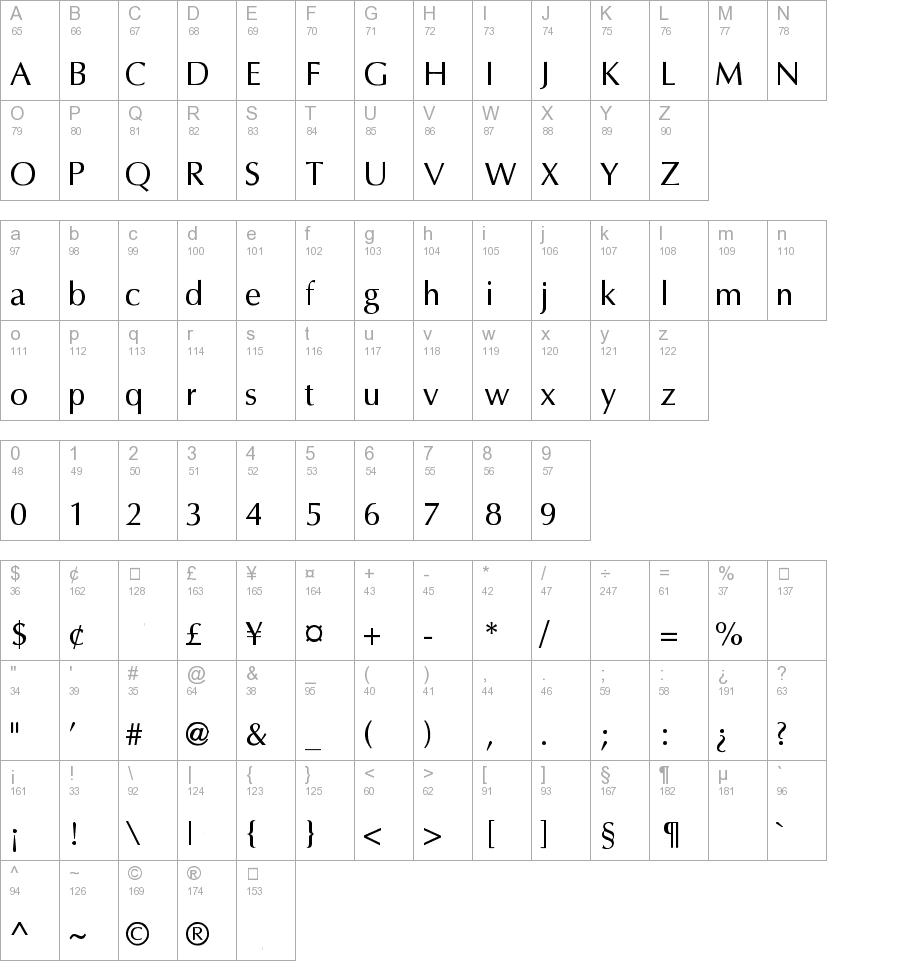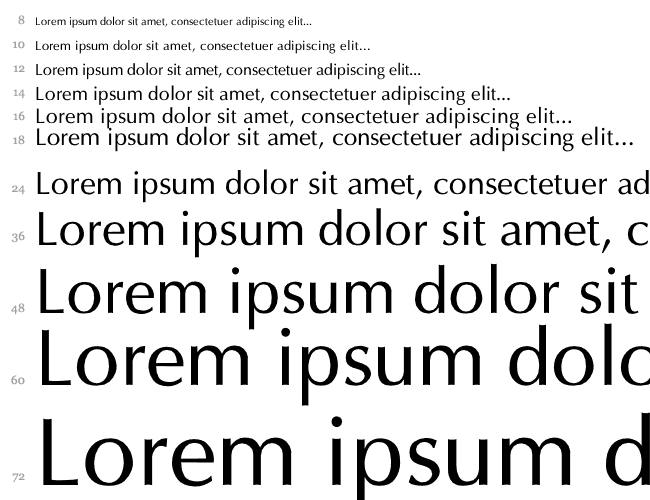
Optima Regular Font
Identifont Optima
Optima Regular truetype font
Optima Regular 001.001 Font Sample Font
Moreover, you can embed it to your. Experience sleek elegance with 'free optima, regular fonts'. Perfect for professional or creative projects! Discover the free optima regular font at free font download ! Installable on pc, mac, linux, ios, and android platforms.